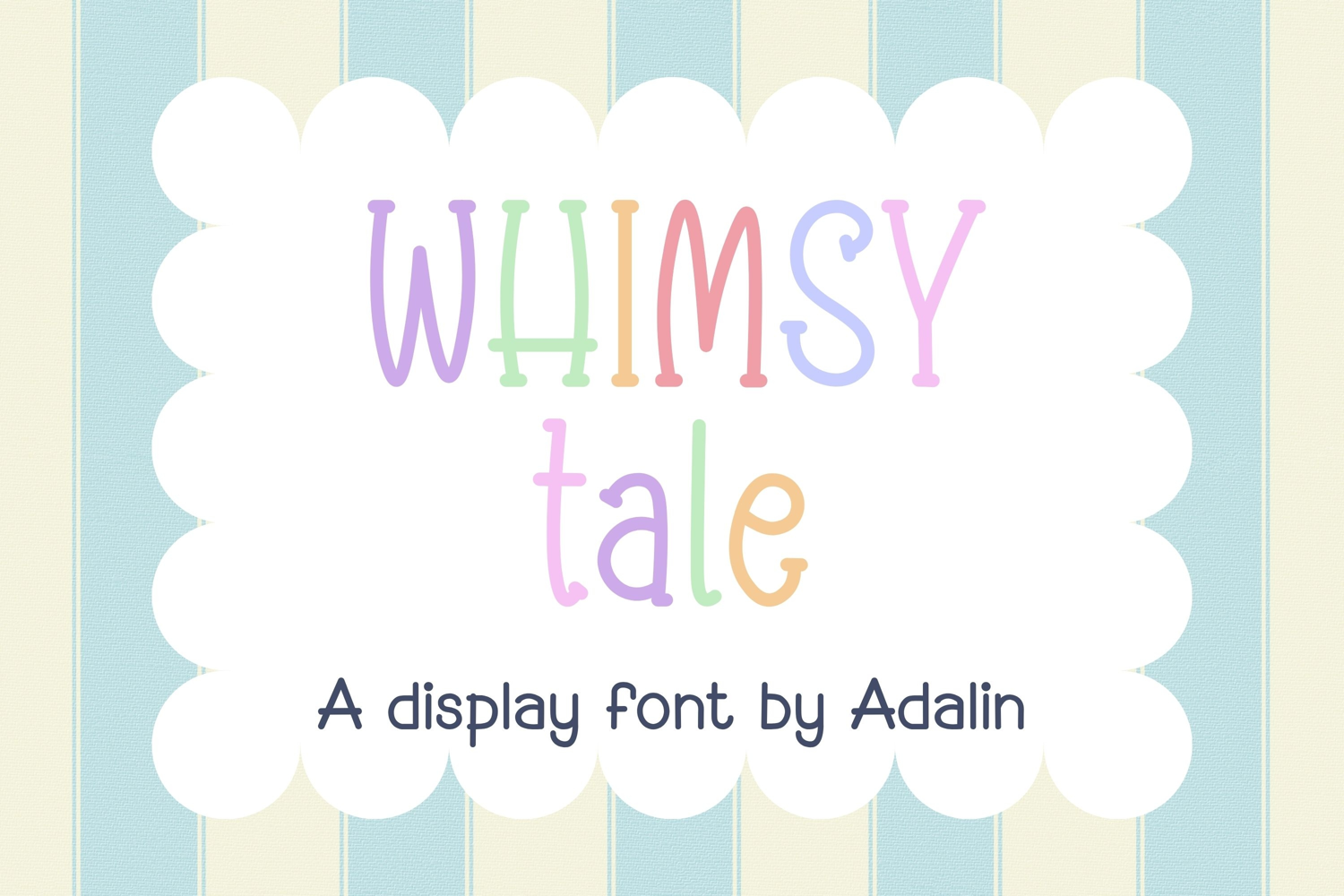
Whimsy Tale Font is a charming hand-drawn display font featuring tall, playful letterforms with a sweet and whimsical personality. Its slightly irregular shapes and delicate rounded details give every word a warm, storybook-inspired feel.
The font includes uppercase and lowercase letters, numerals, and punctuation, making it perfect for children’s designs, storybooks, classroom materials, invitations, greeting cards, posters, branding, stickers, social media graphics, and other creative projects.
Whimsy Tale works beautifully for designs that need a cute, playful, handmade, and cheerful touch.